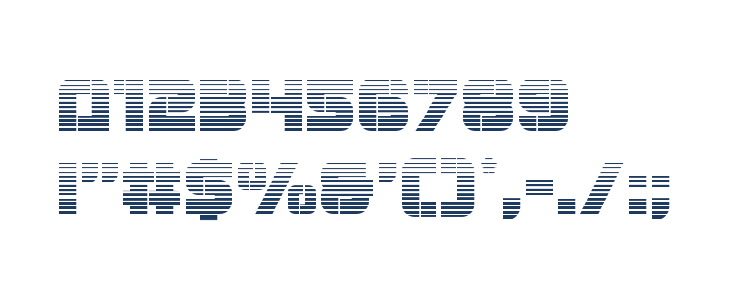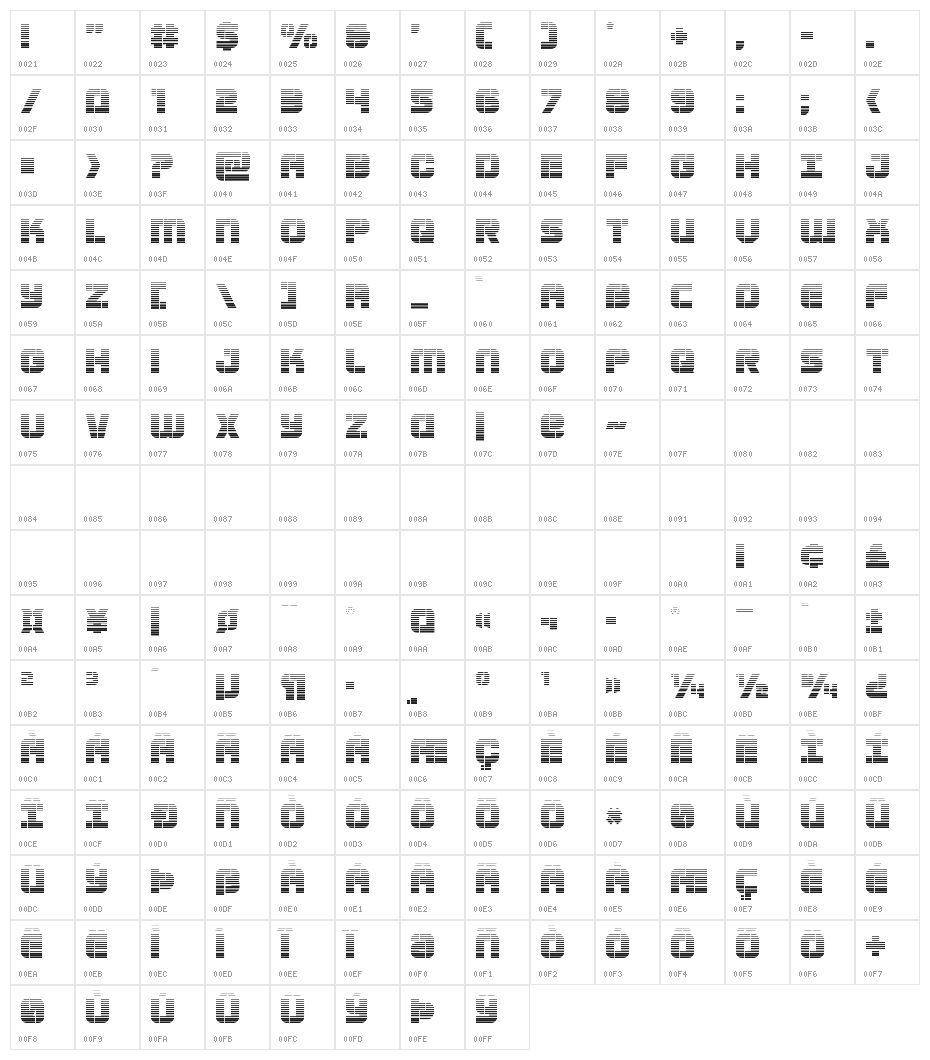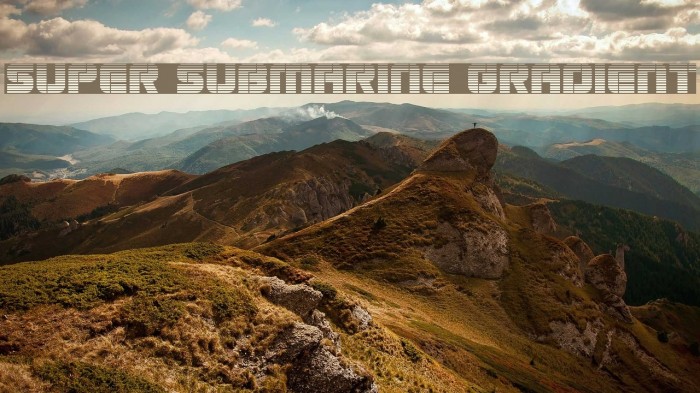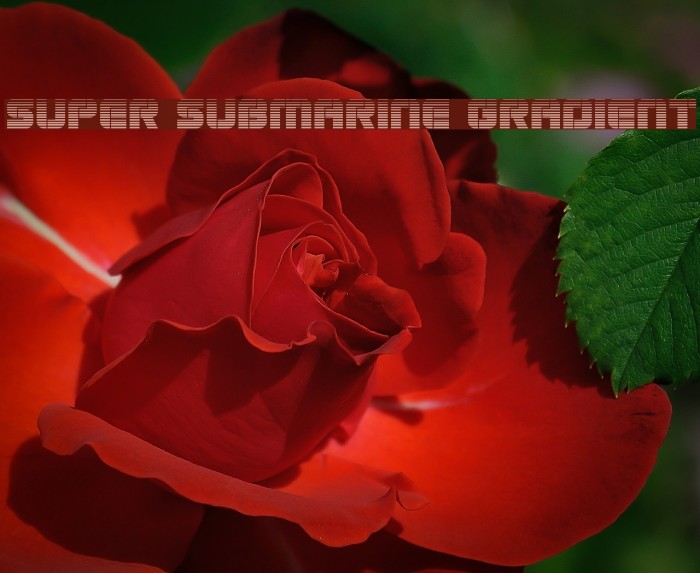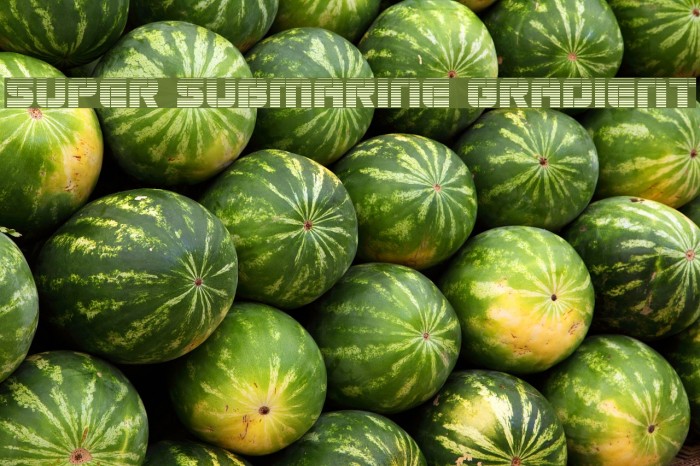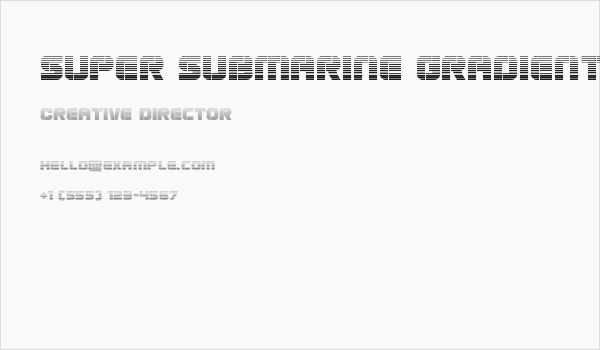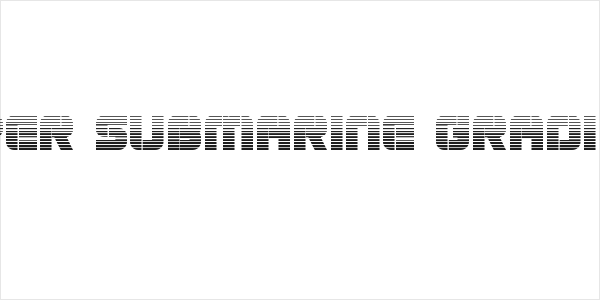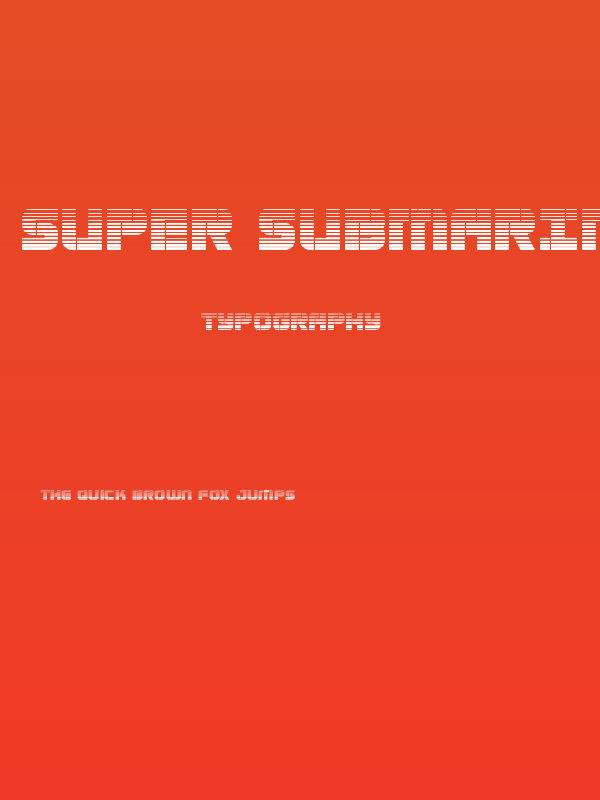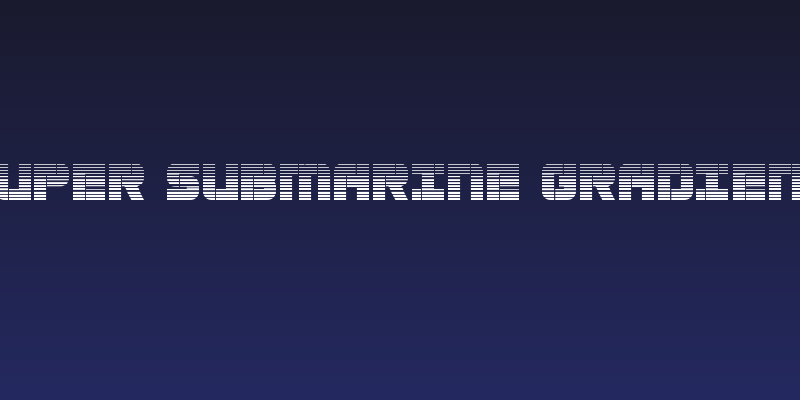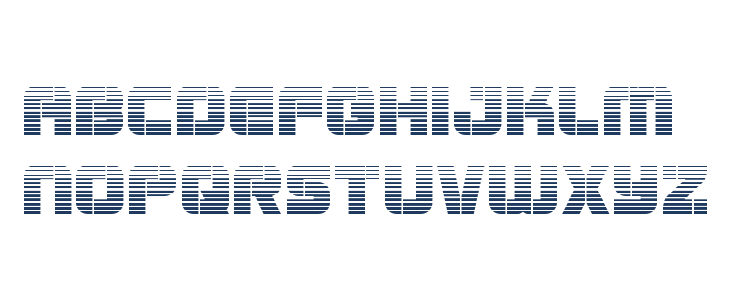
Super Submarine Gradient Font
Super Submarine Gradient Description
This font features a unique, futuristic design characterized by horizontal lines that create a gradient effect within each character. The bold, geometric shapes are consistent across both uppercase and lowercase letters, as well as numbers and special characters. The style is reminiscent of digital or sci-fi themes, making it stand out with its distinct visual appeal. The uniformity in line thickness and spacing gives it a cohesive and structured appearance, suitable for modern and tech-oriented designs.
Proposed ProjectsIdeal for tech branding, sci-fi posters, video game titles, and digital media projects.